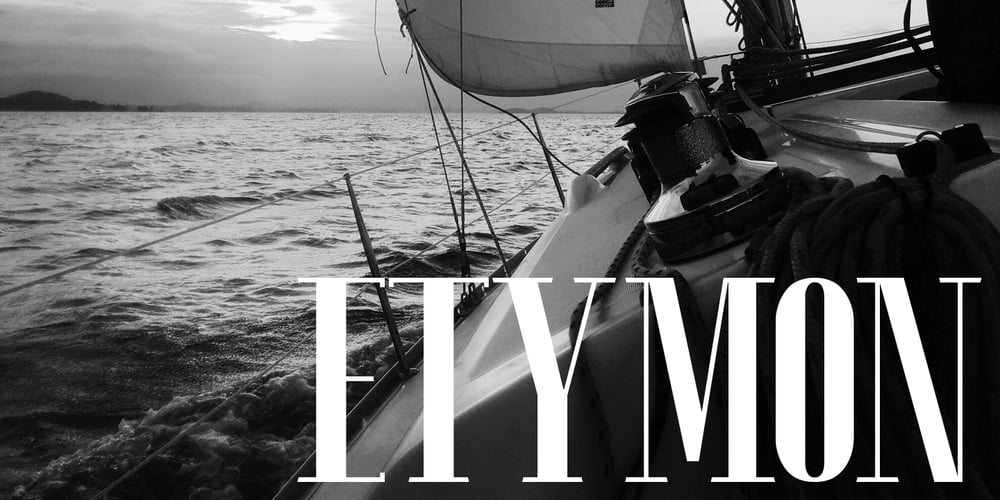
Etymon Font Family was designed by Kent Swecker and published by A New Machine. Etymon contains 4 styles and family package options. Etymon is upscale and stylish – great for magazines, books, music, or luxury packaging that requires clean, classic typography with a modern spin.